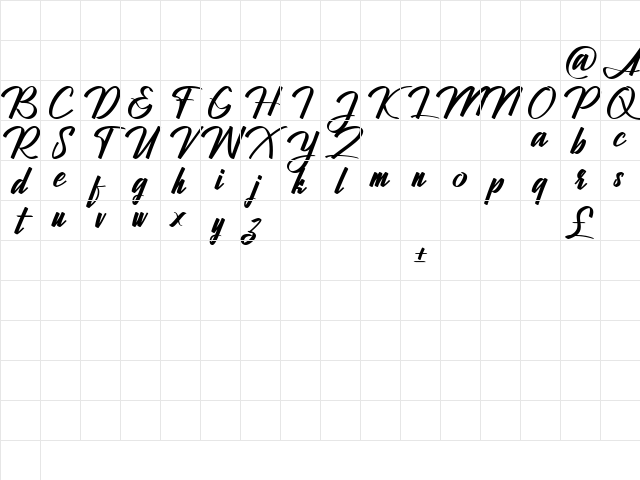
Jhanttan Personal Use Only Regular
Designer: Muhammad Faizal Said
Design Context for Jhanttan Personal Use Only
Jhanttan Personal Use Only is a composed and adaptable typeface that performs quietly and consistently across a wide range of design contexts.